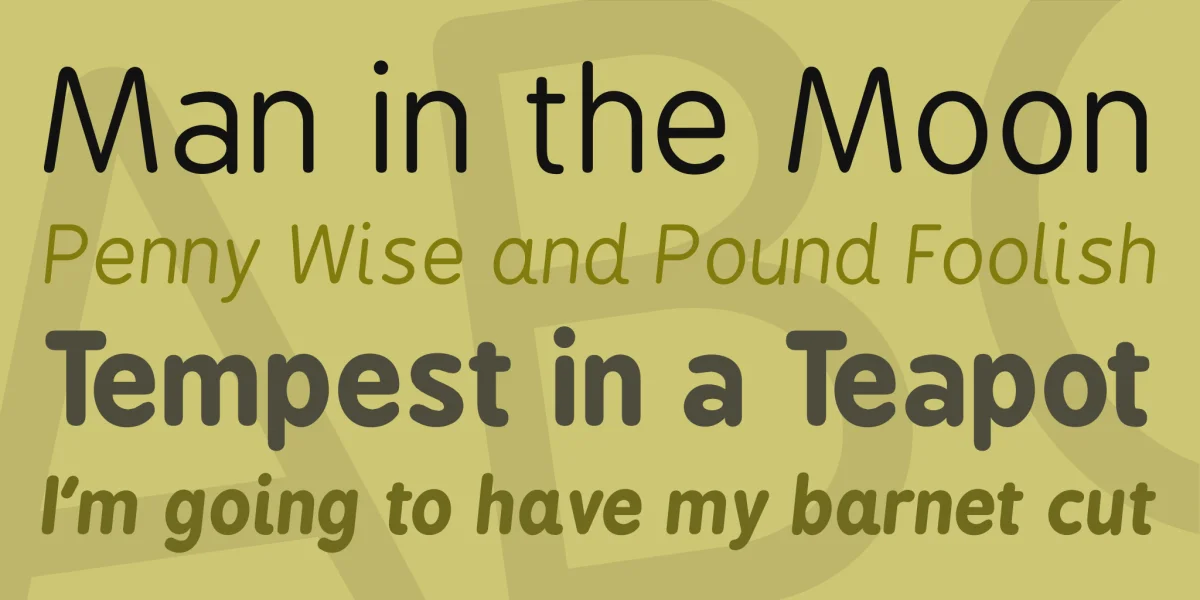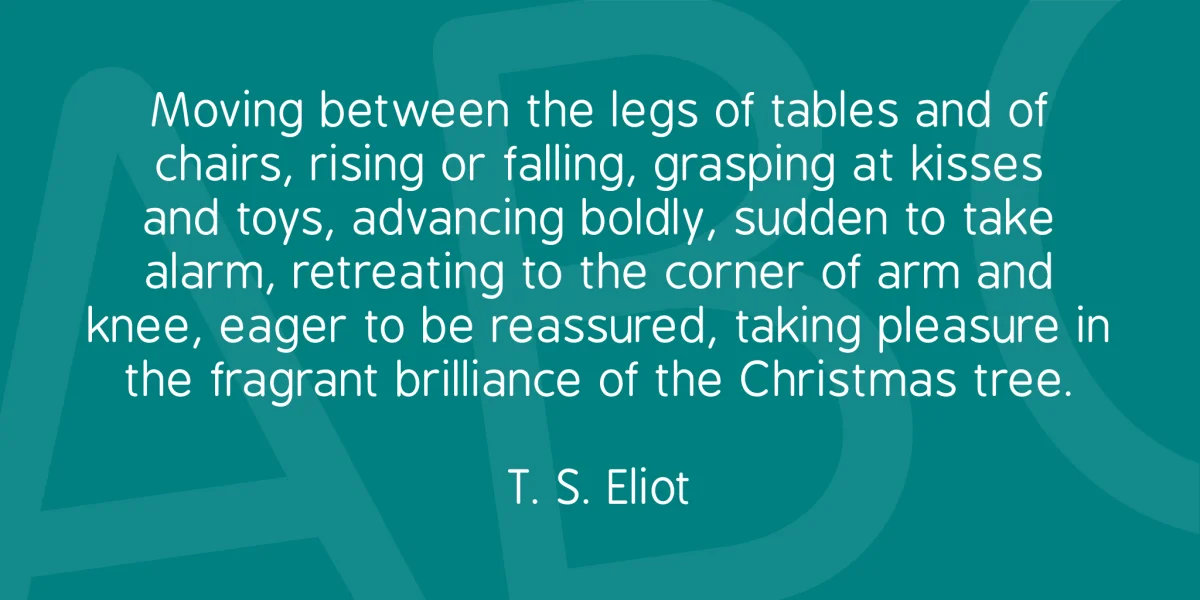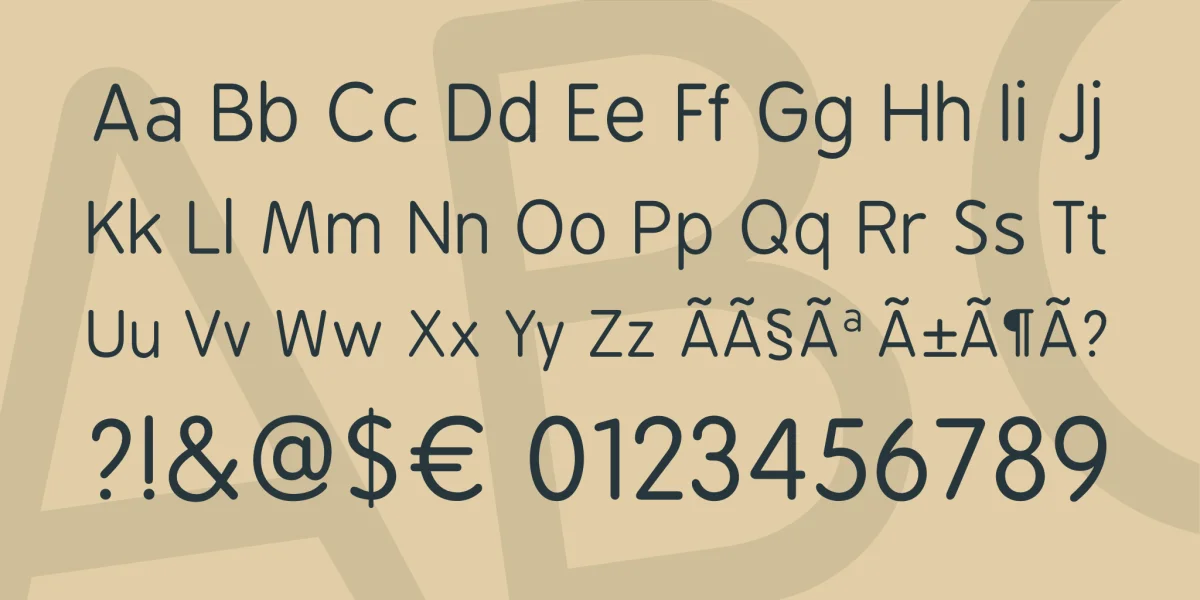
BPreplay came alive from the need to improve MgOpenModata, a rounded typeface made recently available as an open source font from its owner Magenta. Thus, the regular weight of MgOpenModata went through a series of glyph corrections, and in several cases complete alterations (eg. a, epsilon, zeta, xi, omega, etc.), and through this process BPreplay regular was born. BPreplay italics, bold and bold italics, together with small caps and old style numerals, were redesigned from scratch based on BPreplay regular.
Tip: Try using the stylistic alternate "a" (similar to the greek upright alpha) in latin text for a subtly different, but equally interesting, look and feel.